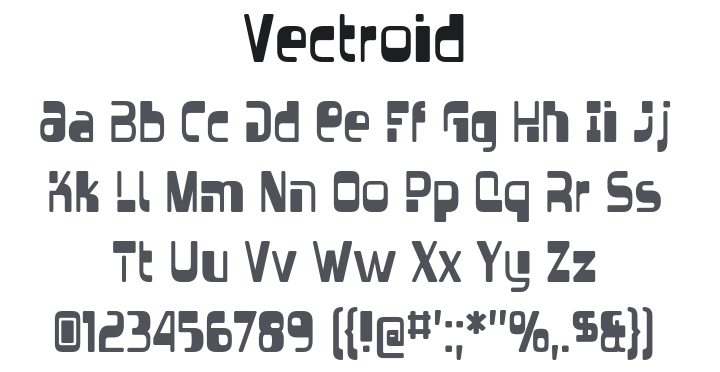
Vectroid Font
About Vectroid
Vectroid is an unconventional industrial display typeface with bold, blocky letterforms featuring smooth, rounded corners and unusual structural choices that give it a dependable, mechanical character — somewhere between a vector diagram and a circuit board schematic. Its clean, geometric confidence feels distinctly retro-futuristic. Perfect for sci-fi interfaces, robotics branding, engineering-themed designs, tech game titles, and any headline needing sturdy, systematic industrial authority.